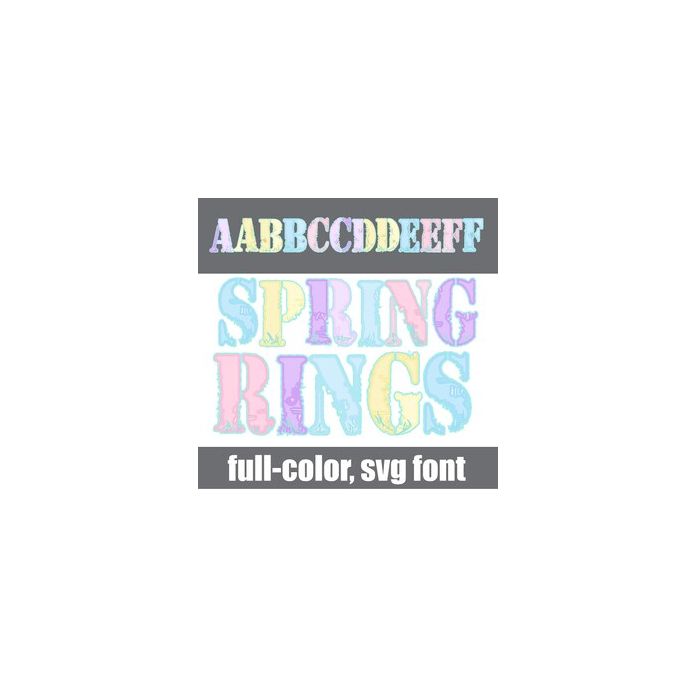
This full-color font features stenciled serif lettering in beautiful, pastel, spring colors. There is an alt case w/ additional colors you can access through your system or Silhouette's glyph map.